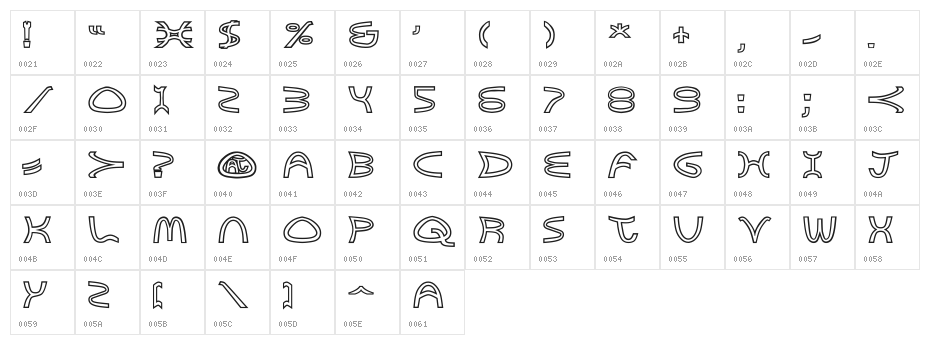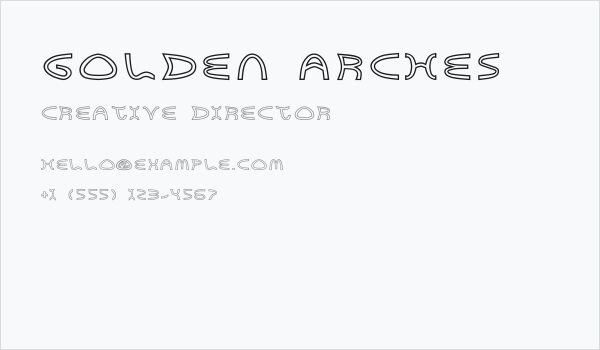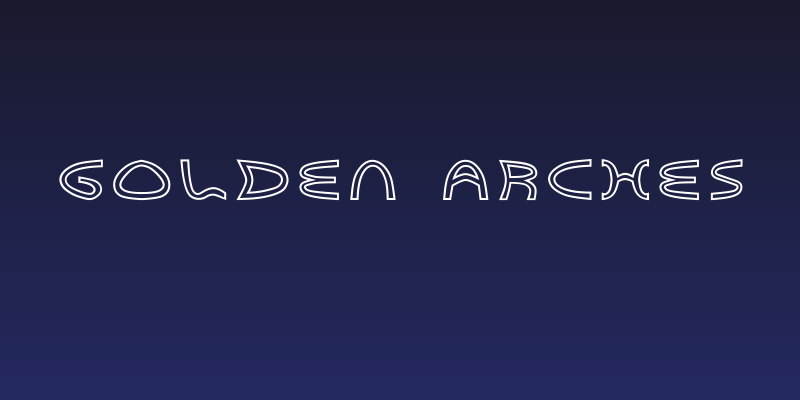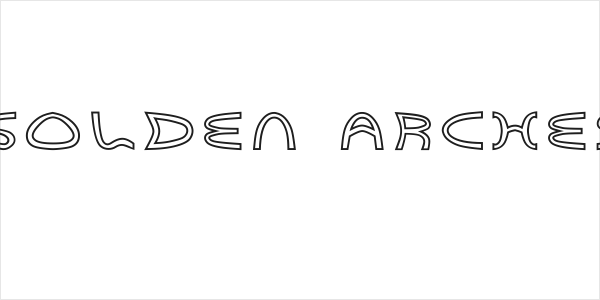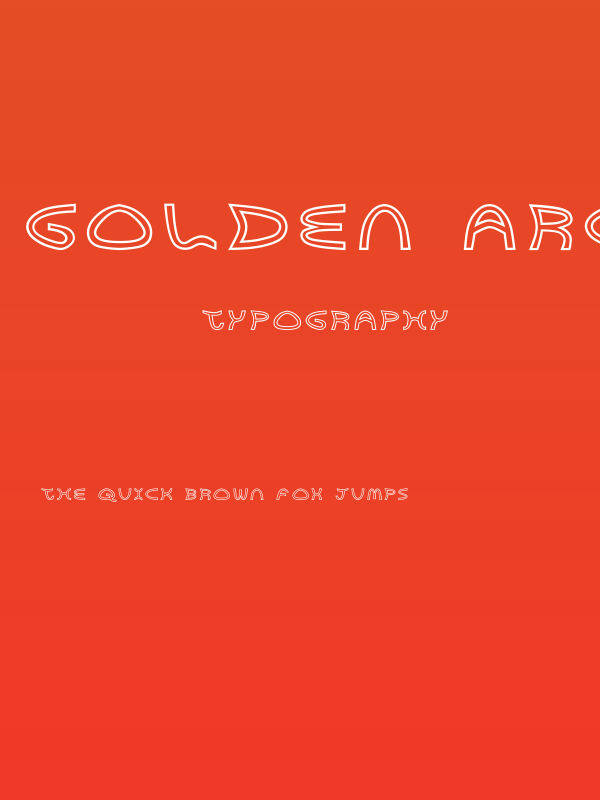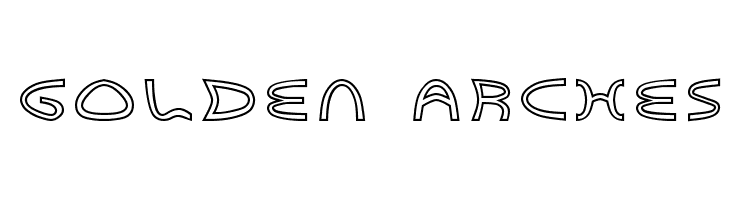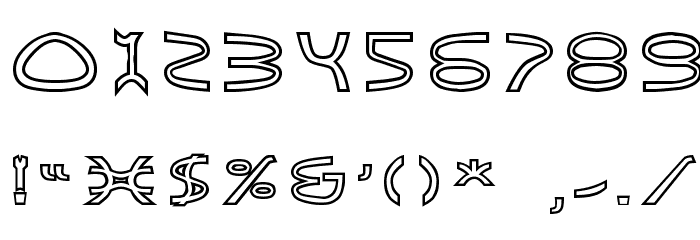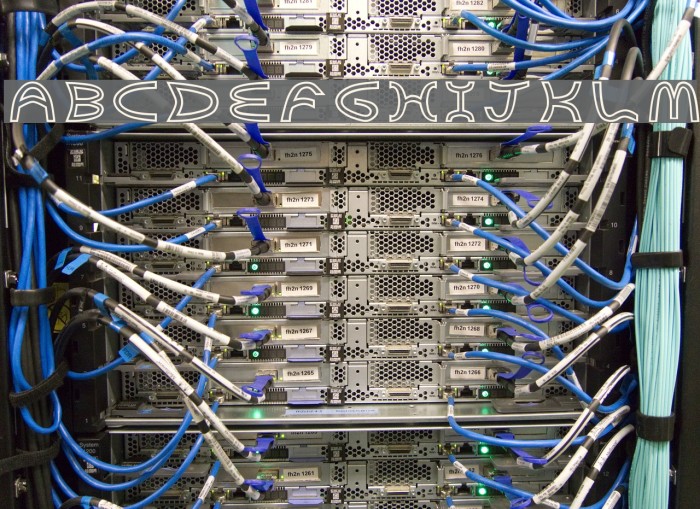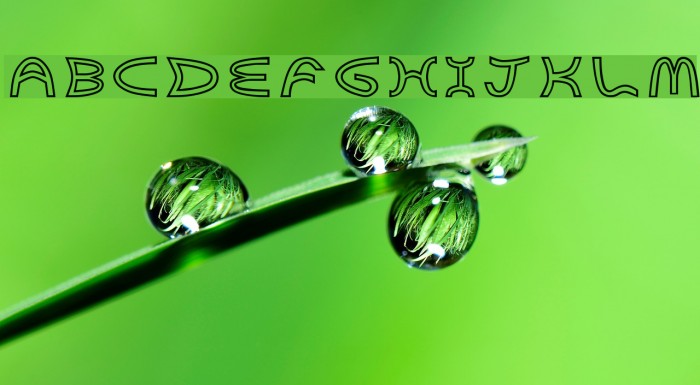
Golden Arches Font
Golden Arches Description
This font features a unique and playful design with a distinct outline style. Each character is crafted with a bold, hollow appearance, giving it a three-dimensional effect. The uppercase letters have a whimsical, almost cartoonish quality, while the lowercase letters maintain a consistent style. The numerals and special characters follow the same design principles, ensuring uniformity across the font. The overall look is eye-catching and suitable for creative projects that require a fun and engaging typeface.
| Proposed Projects | Ideal for children's books, playful branding, posters, and creative digital content. |